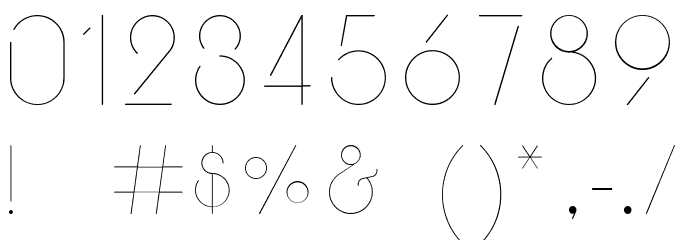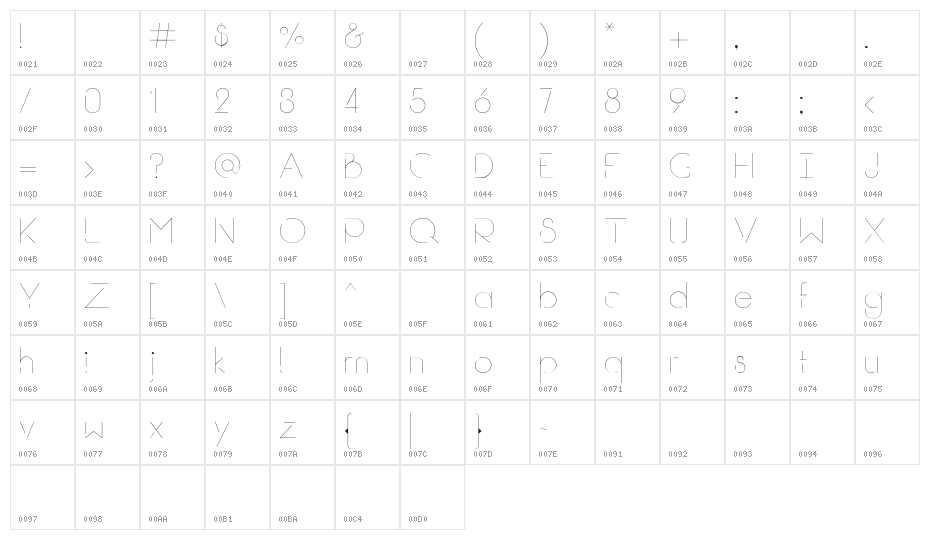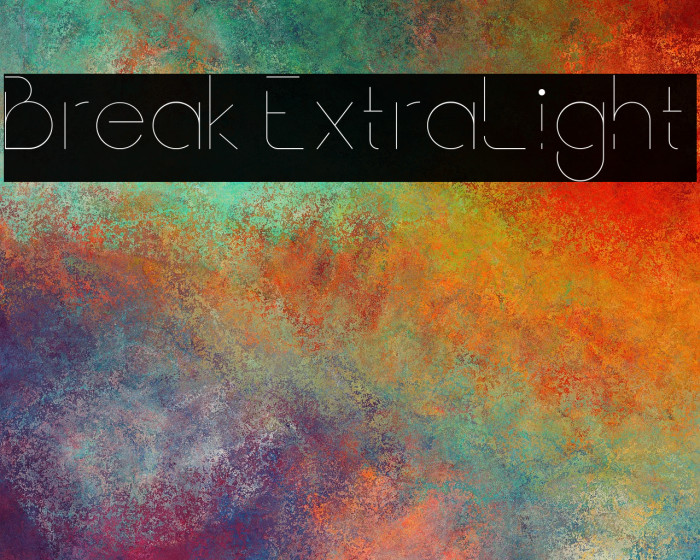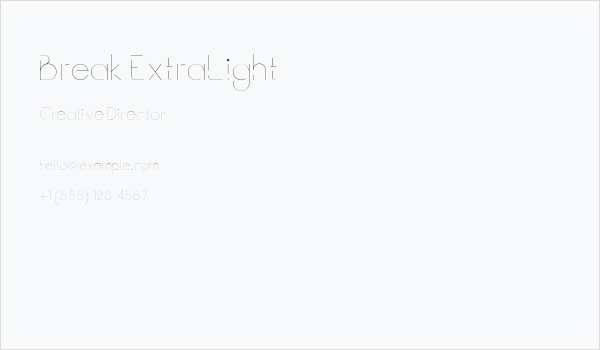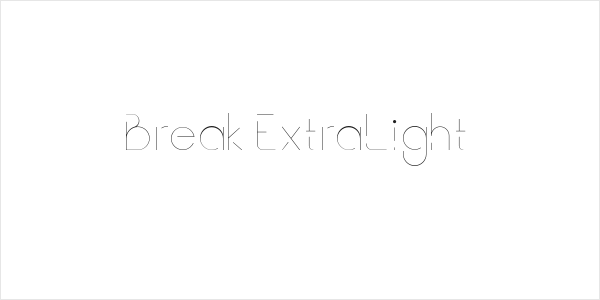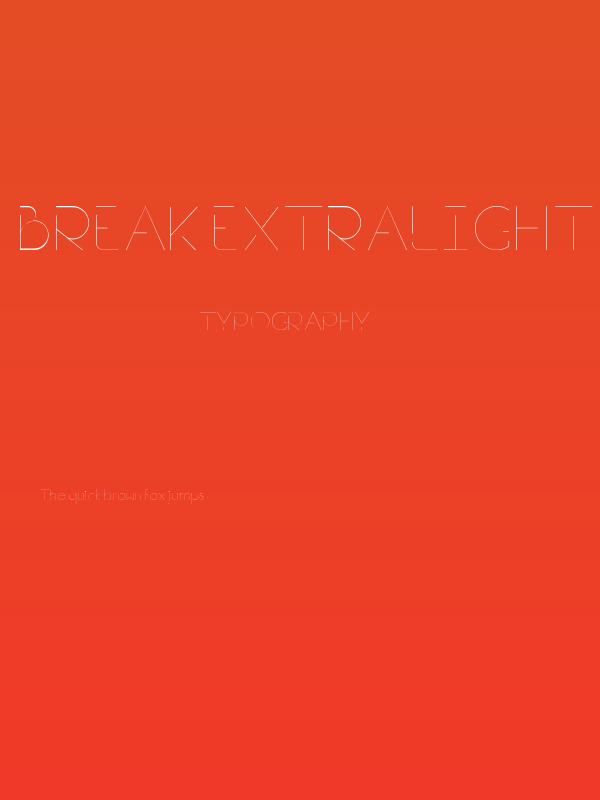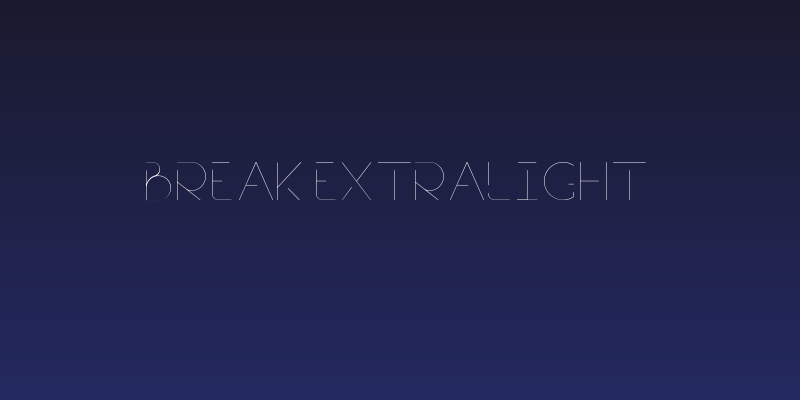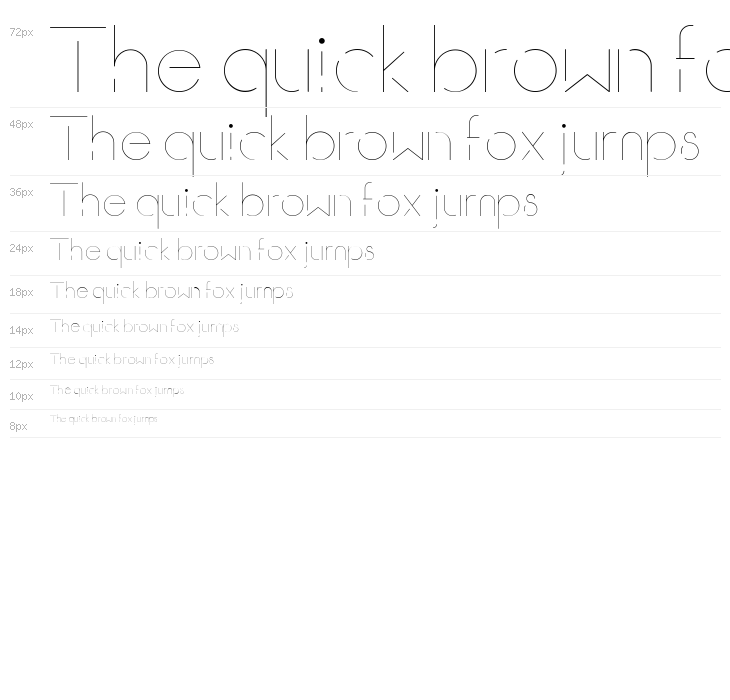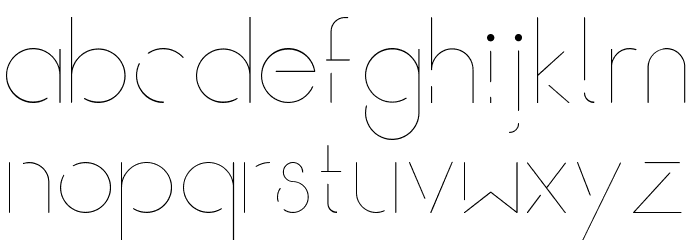
Break ExtraLight Font
Break ExtraLight Description
This font features a minimalist and geometric design with an ultra-lightweight appearance. The characters are constructed with clean lines and a modern aesthetic, emphasizing simplicity and elegance. The uppercase and lowercase letters maintain a consistent style, with rounded edges and a uniform stroke width that contributes to its airy feel. The numerals and special characters are designed to complement the alphabet, maintaining the same sleek and contemporary look. This font is ideal for projects that require a subtle yet sophisticated touch, offering a sense of modernity and clarity.
| Proposed Projects | Ideal for branding, editorial design, minimalist posters, and digital interfaces. |